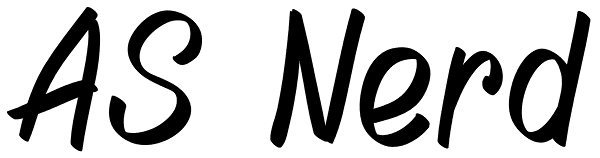
AS Nerd
AS Nerd is a contemporary brush script. AS Nerd is a beautiful typeface that mimics true handwriting closely. Use AS Nerd, and your documents will look stunningly beautiful from now on. Perfect for printing your personal thoughts be they silly...